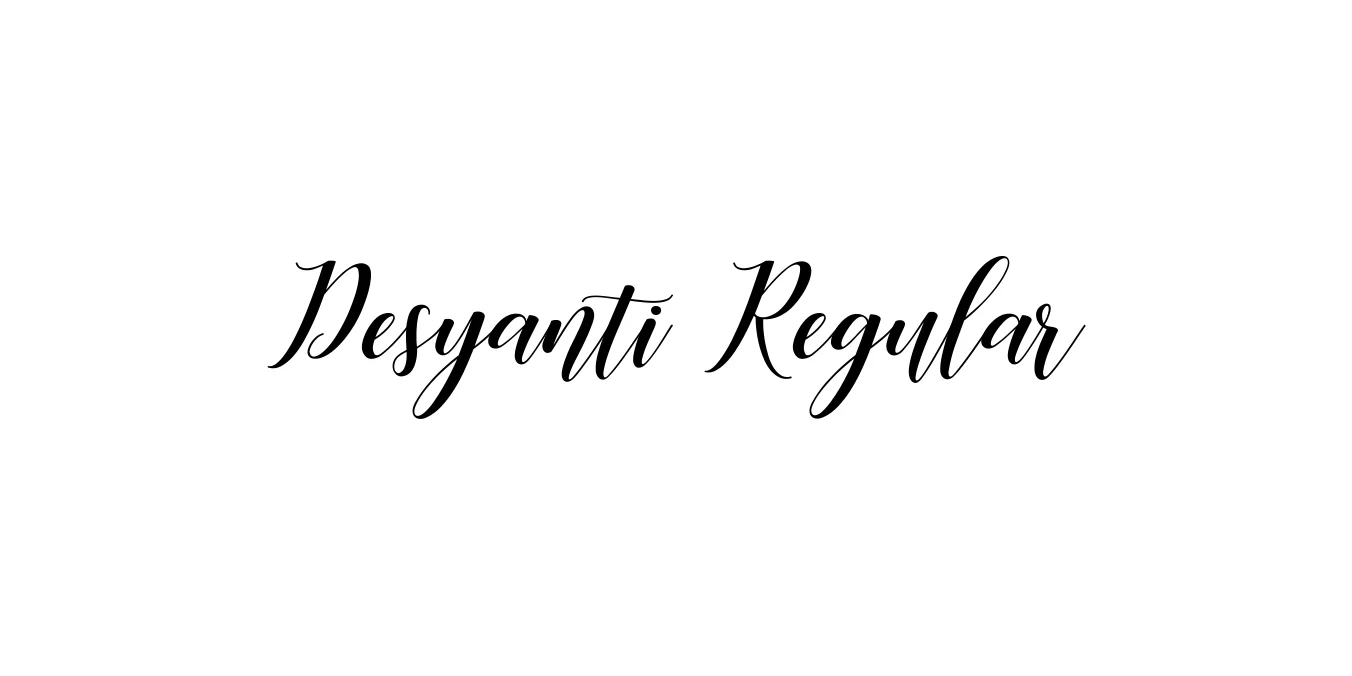
Desyanti Regular
Designed by Edric Studio
| Font Name | Desyanti |
| Designer | Edric Studio |
Desyanti Regular is a sophisticated script typeface that embodies elegance and artistic flair. Designed with a flowing, calligraphic rhythm, this font brings a personalized and high-end feel to any creative project. Its delicate swashes and balanced proportions make it a favorite for designers looking to convey luxury and femininity through typography.
The font is particularly well-suited for high-end branding and editorial design. It includes a variety of OpenType features, such as stylistic alternates and ligatures, which provide versatility and allow for a truly custom appearance. Whether used for digital media or print, Desyanti Regular maintains its legographical integrity and visual appeal.
Desyanti Regular Best Uses
Perfect for invitations, RSVP cards, and envelopes due to its romantic and elegant nature.
Ideal for logos and identity designs for luxury brands, boutiques, and beauty products.
Great for creating eye-catching quotes and decorative overlays on Instagram or Pinterest.
Adds a premium feel to product labels, particularly in the cosmetics and gourmet food industries.
Desyanti Regular Glyphs